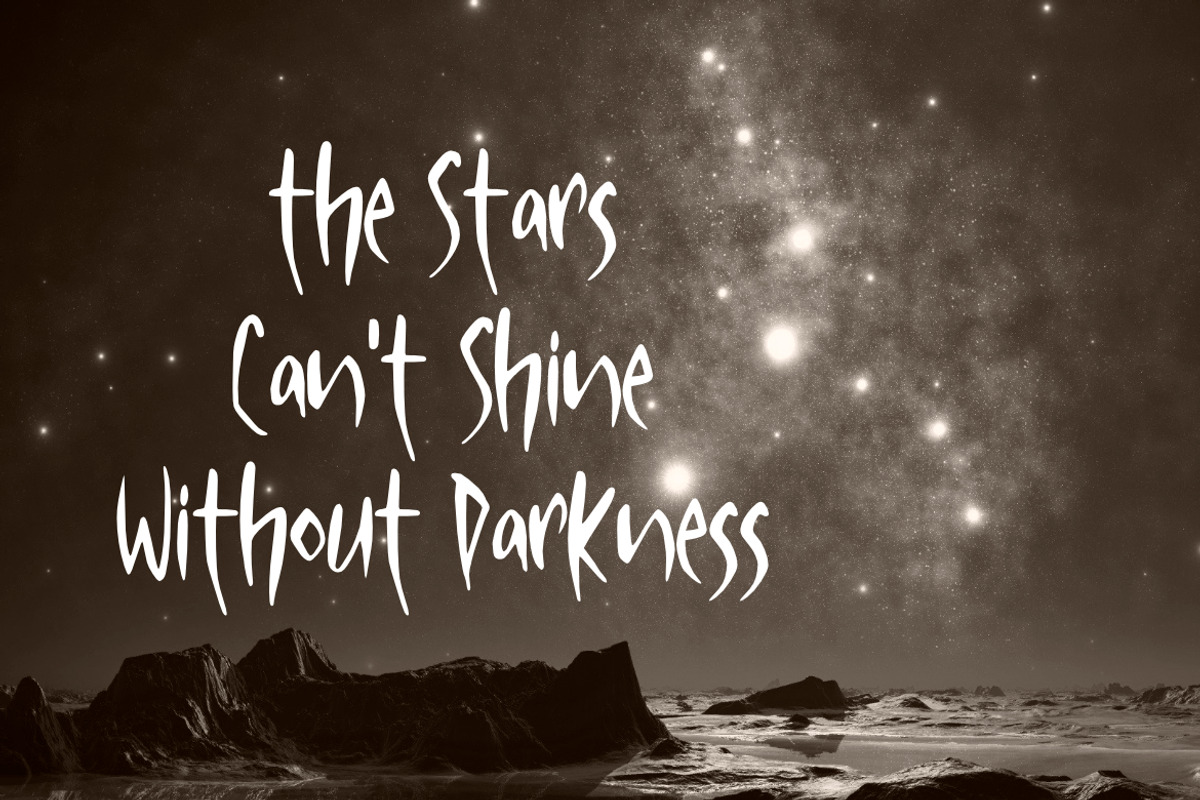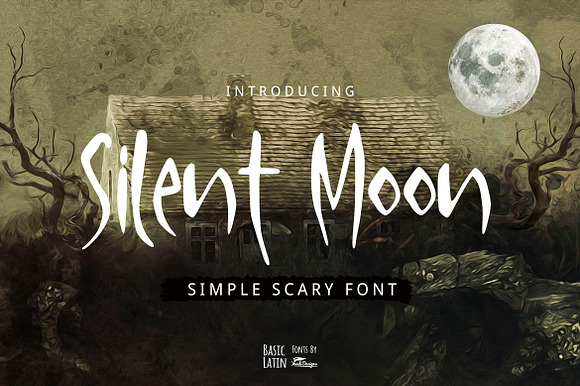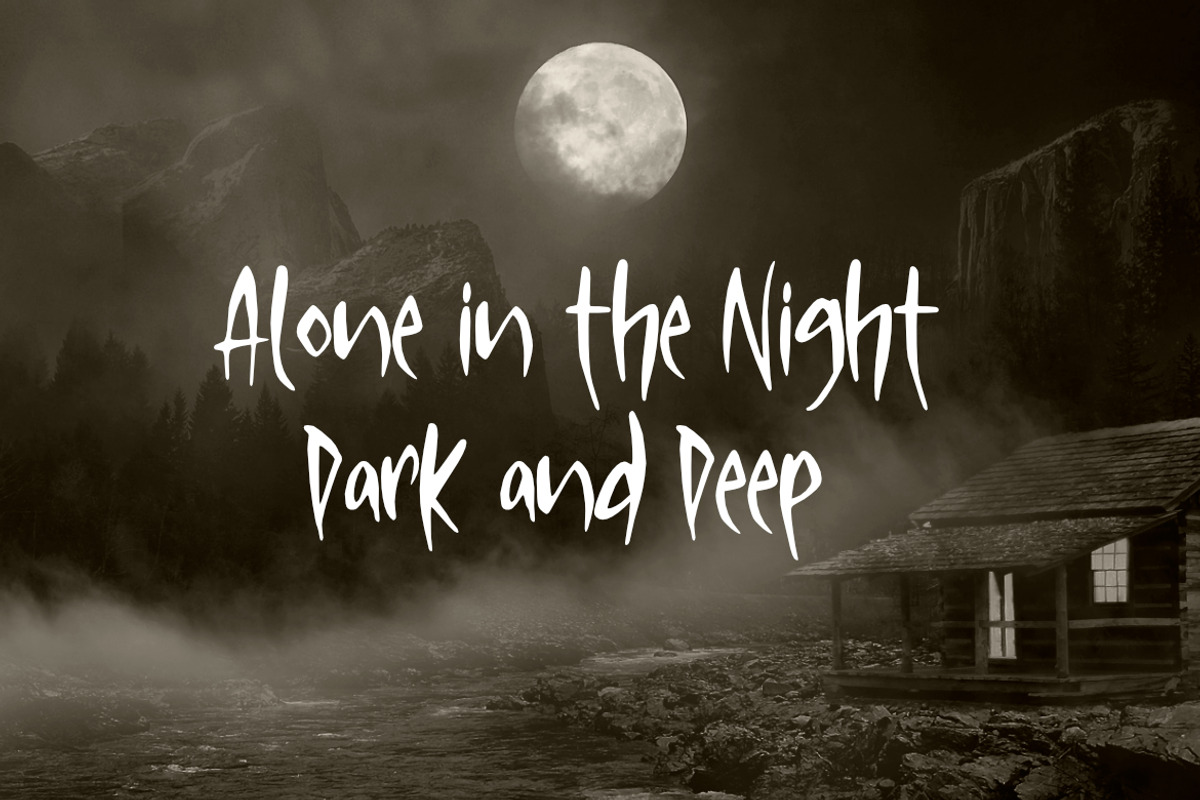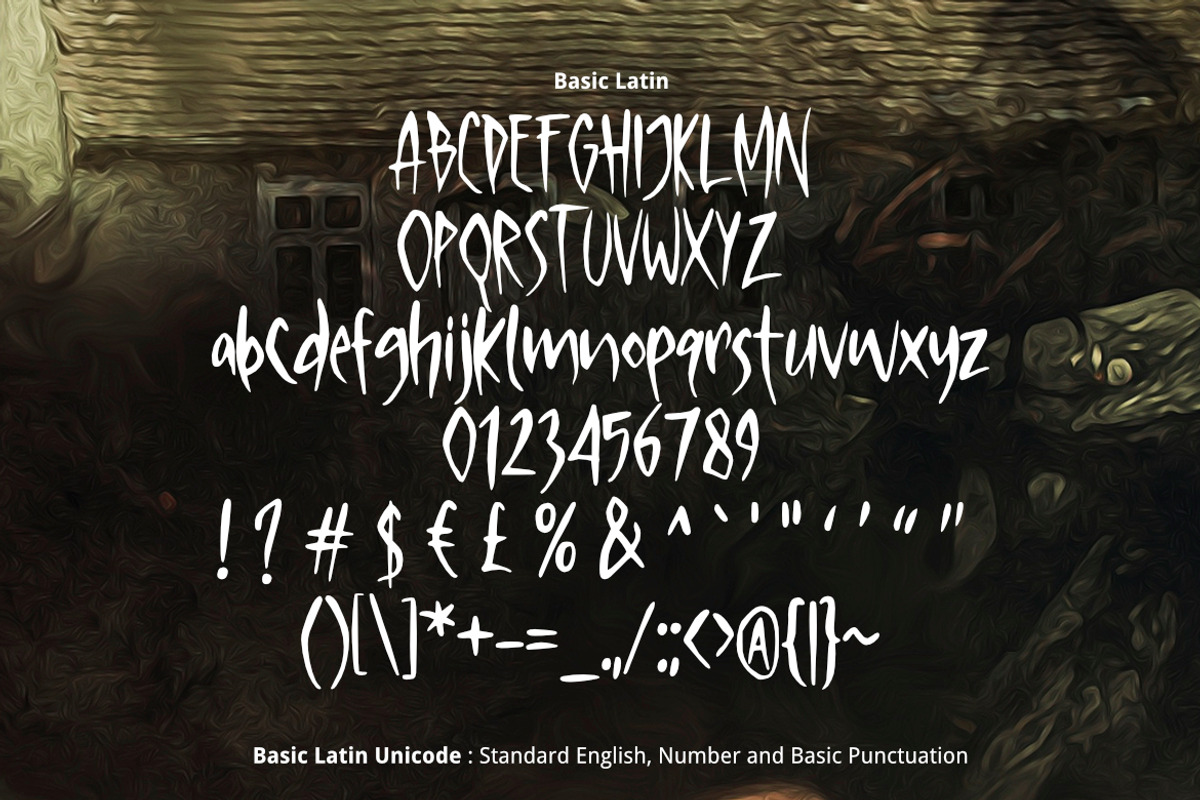
Silent Moon Scary Font
Silent moon is lovely, simple, playful, scary, multipurpose handwritten font , suitable for many project children book, quotes, logo , heading , title etc.
Why Silent Moon Scary Font is worth a look
Silent Moon Scary Font by YandiDesigns fits naturally into Branding, posters, packaging, typography.